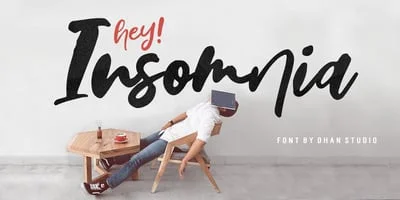
Hey Insomnia Font
Hey Insomnia Font is ideal for late-night creative projects, midnight café branding, nocturnal lifestyle publications, sleepless artist portfolios, night shift worker materials, insomniac support groups, and atmospheric nighttime designs.
What makes Hey Insomnia Font exciting is its restless energy and nocturnal creativity, featuring wakeful letterforms that capture the essence of sleepless nights while delivering atmospheric visual appeal and midnight authenticity.
The Hey Insomnia Font family includes Light, Regular, Medium, Bold, and Heavy weights, plus restless variants and nocturnal alternates that enhance the font's wakeful character and nighttime possibilities.
Hey Insomnia Font embodies the creative spirit of sleepless nights and the atmospheric beauty of nocturnal consciousness through evocative typography design. This atmospheric typeface captures the restless energy of midnight hours and the unique creativity that emerges during sleepless nights, creating a nocturnal visual language that speaks to night owls and creative insomniacs who value midnight inspiration, atmospheric creativity, and the compelling appeal of nocturnal artistic expression. The font's restless character and nighttime appearance make it perfect for late-night venues, creative studios, and atmospheric brands that want to communicate mystery, creativity, and the captivating appeal of sleepless artistic energy.
Late-night establishments and creative organizations consistently choose Hey Insomnia Font for projects that require authentic nocturnal credibility and atmospheric visual appeal. The typeface's wakeful construction and restless personality make it exceptionally effective for midnight cafés, creative studios, and artistic venues where nocturnal atmosphere and sleepless creativity are paramount. Each character has been designed with atmospheric precision to ensure maximum impact across all nighttime applications and creative environments.
The nocturnal advantages of Hey Insomnia Font extend beyond its sleepless appeal to include practical functionality for diverse atmospheric applications. The font maintains excellent readability in low-light conditions while delivering the distinctive character that creates memorable nighttime experiences and connects with audiences seeking authentic nocturnal creativity. Its comprehensive character set includes atmospheric symbols and nighttime elements that make it particularly suitable for creative documentation and nocturnal communication.
Midnight cafés, creative studios, and artistic organizations frequently incorporate Hey Insomnia Font into their brand identity systems because of its ability to instantly convey nocturnal authenticity and atmospheric sophistication. The typeface's restless aesthetic helps establish credibility in creative markets while appealing to night owls who value midnight inspiration, atmospheric creativity, and the unique experiences that come from authentic sleepless artistic expression and nocturnal creative energy.